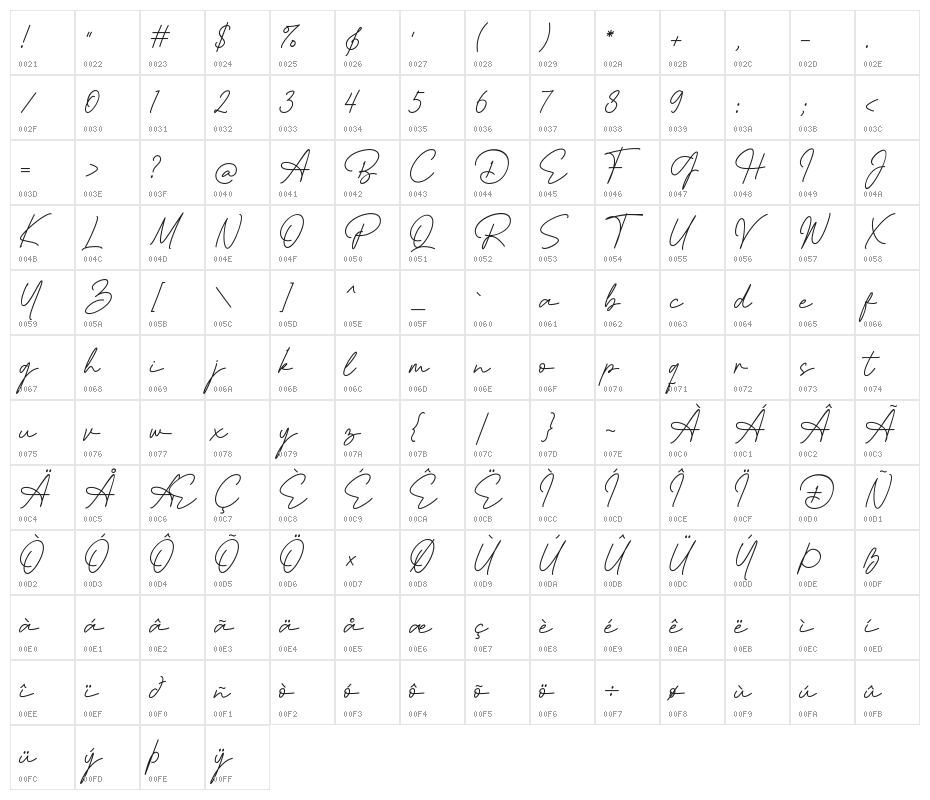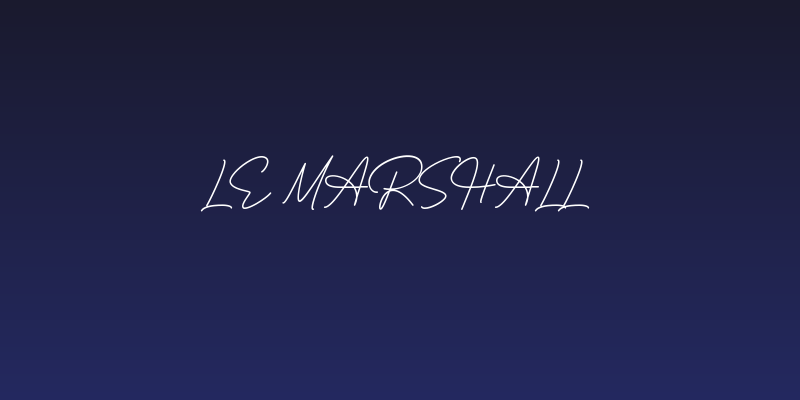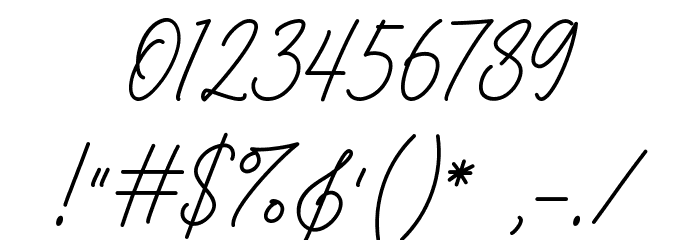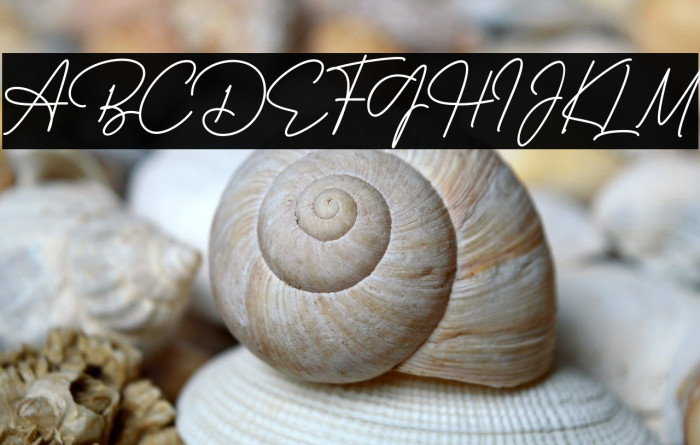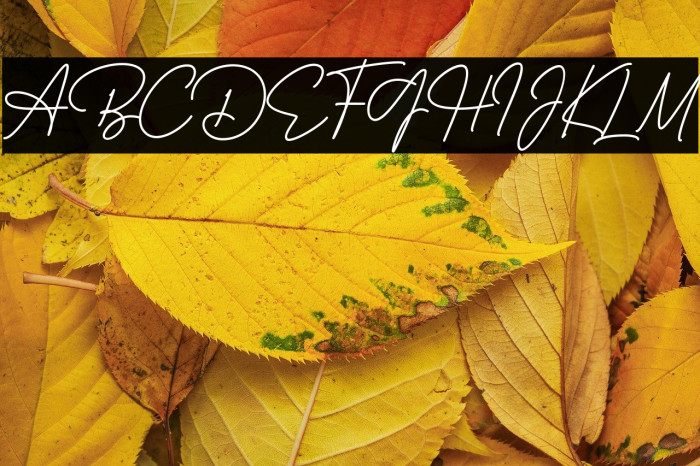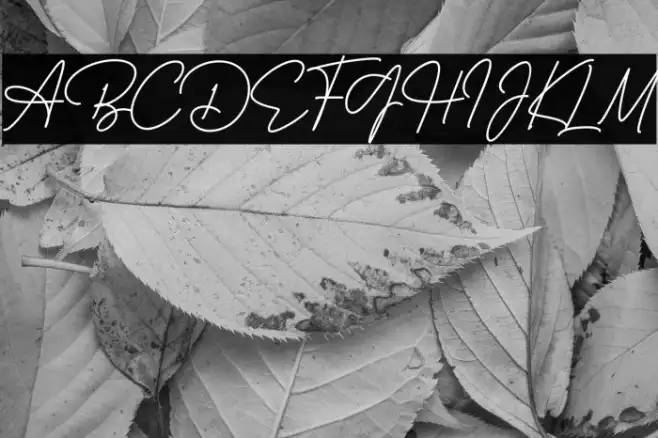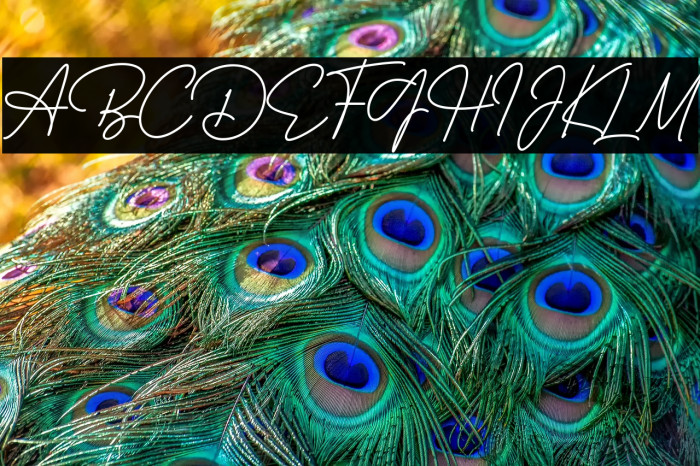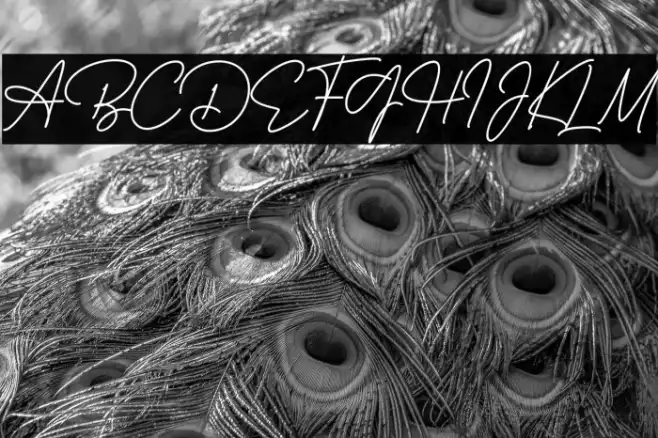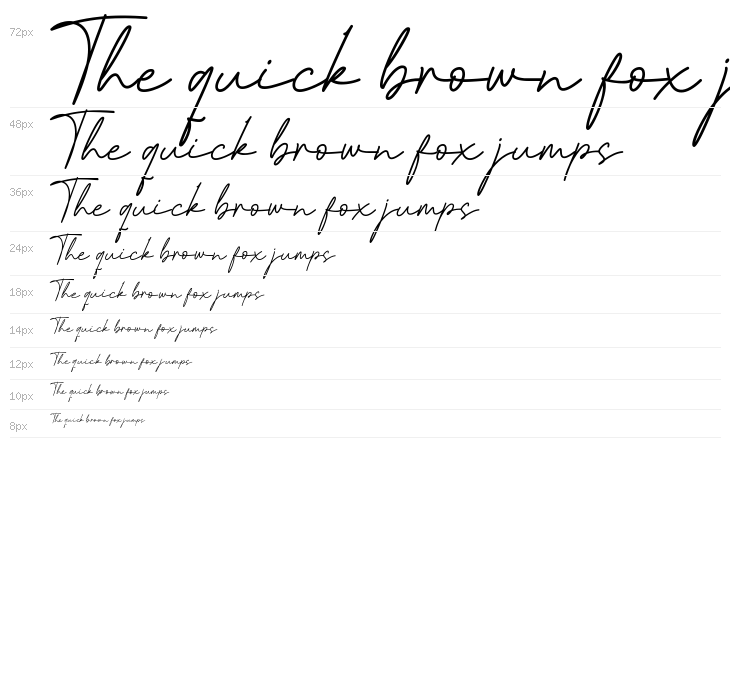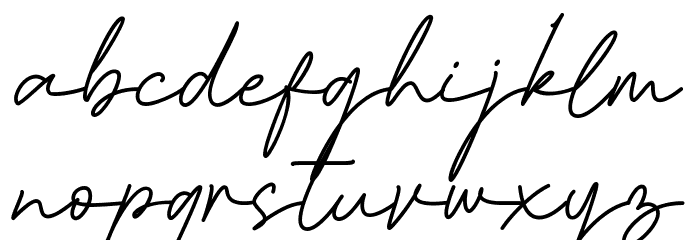
Le Marshall Font
Le Marshall Description
This is an elegant and flowing script font that mimics the fluidity of natural handwriting. The letters are connected, creating a seamless and cursive appearance that is both sophisticated and approachable. The uppercase letters maintain a consistent height, while the lowercase letters exhibit a gentle slant, enhancing the font's graceful aesthetic. The numerals and special characters are designed to complement the overall style, maintaining the same fluid strokes. This font is perfect for projects that require a personal touch, such as invitations, greeting cards, or branding materials. Its legibility and charm make it suitable for both formal and informal contexts.
| Proposed Projects | Ideal for wedding invitations, personal branding, greeting cards, and elegant stationery. |